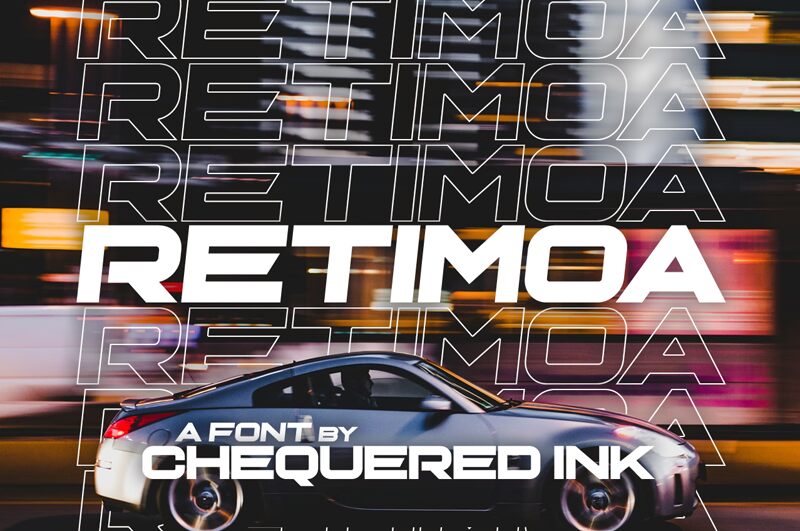
Retimoa font family by Chequered Ink is a free techno font with a modern, dynamic, and futuristic style. The 2-font family showcases sleek and impactful characters that carry a creative edge. Its unconventional design resulted in fashionable text with a memorable appearance. This uniquely crafted typeface masterfully conveys an adventurous energy.
This font family is a suitable choice for video game design, sci-fi movie posters, book covers, and artistic typography projects. It can also be used within digital content for blogs, social media posts, and branding. Additionally, teenagers could use it for school projects requiring creativity.